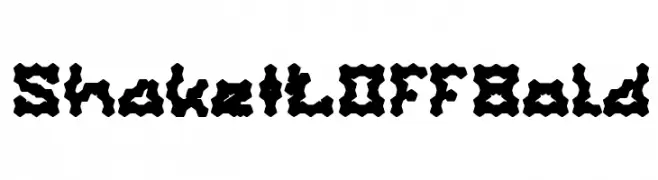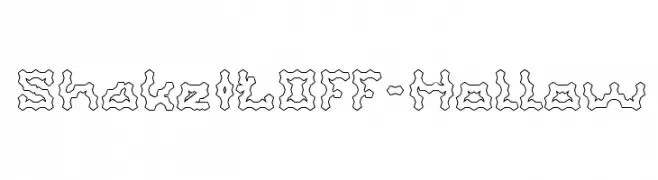
A bold, jagged font with an energetic and playful design.
A playful, wavy hollow font with a dynamic outline.
A wavy, hollow outline font with a dynamic and playful style.
A bold, wavy font with a playful and dynamic design.
A bold, jagged font with a playful, hand-drawn appearance.
( Alternika )